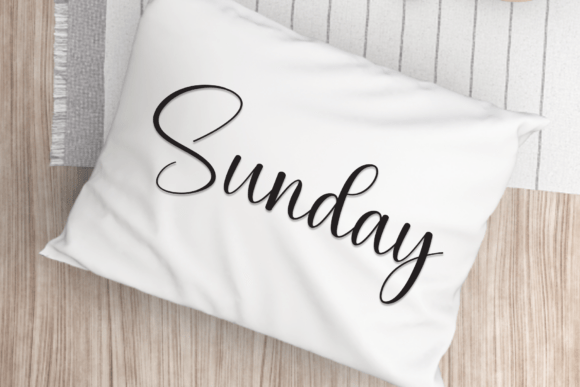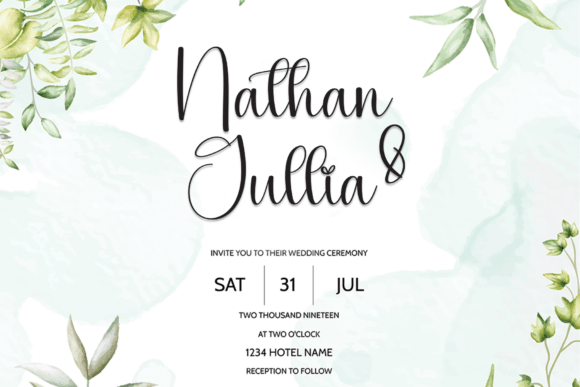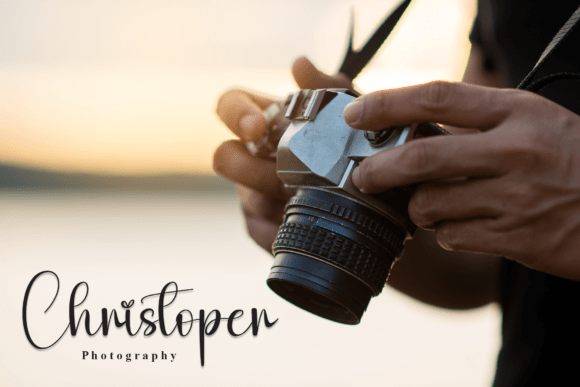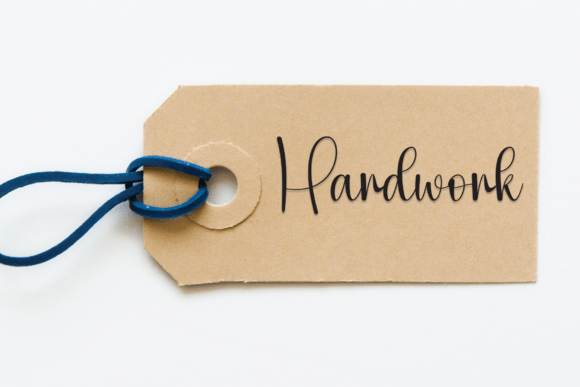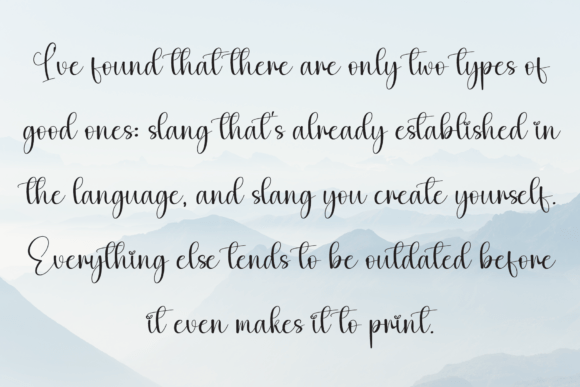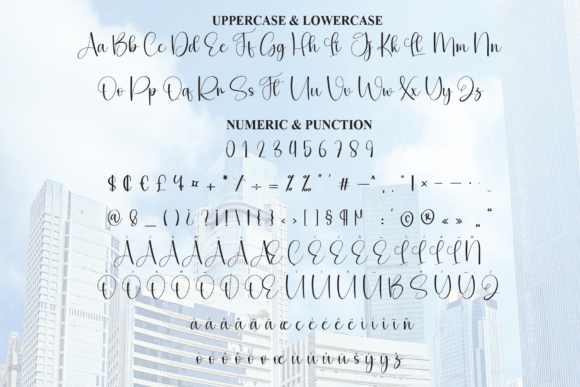
Introducing Building Font: Elevate Your Designs with Creative Flair
Are you tired of using the same old fonts in your designs? Do you want to add a touch of elegance and sophistication to your projects? Look no further than Building Font, the latest and most creative font to hit the market. Our font is designed to provide you with an extraordinary experience, perfect for a wide range of applications, from wall displays to wedding invitations, social media posts, logos, advertisements, product packaging, and more.
What Sets Building Font Apart
Building Font is not just another font – it’s a game-changer. Our font features the latest style letters that are sure to make your designs stand out from the crowd. With its unique and creative flair, Building Font is perfect for designers and crafters who want to add a touch of personality to their projects. Whether you’re working on a wedding invitation, a social media post, or a product label, Building Font is the perfect choice.
The possibilities are endless with Building Font. Our font can be used for a wide range of applications, including:
• Wall displays: Add a touch of elegance to your wall displays with Building Font.
• Wedding invitations: Make your wedding invitations truly special with our beautiful font.
• Social media posts: Elevate your social media posts with our unique and creative font.
• Logos: Create a lasting impression with our font, perfect for logos and branding.
• Advertisements: Stand out from the crowd with our font, perfect for advertisements and marketing materials.
• Product packaging: Add a touch of personality to your product packaging with Building Font.
• Product designs: Create stunning product designs with our font.
• Labels: Make your labels truly special with Building Font.
• Photography: Add a touch of elegance to your photography with our font, perfect for watermarks and more.
• Invitations: Create beautiful invitations for any occasion with Building Font.
• Stationery: Elevate your stationery with our font, perfect for letters, cards, and more.
Why Choose Building Font?
So why choose Building Font over other fonts on the market? Here are just a few reasons:
• Unique and creative design: Our font features a unique and creative design that’s sure to make your projects stand out.
• High-quality: Building Font is a high-quality font that’s designed to provide a professional finish.
• Versatility: Building Font can be used for a wide range of applications, making it a great value for designers and crafters.